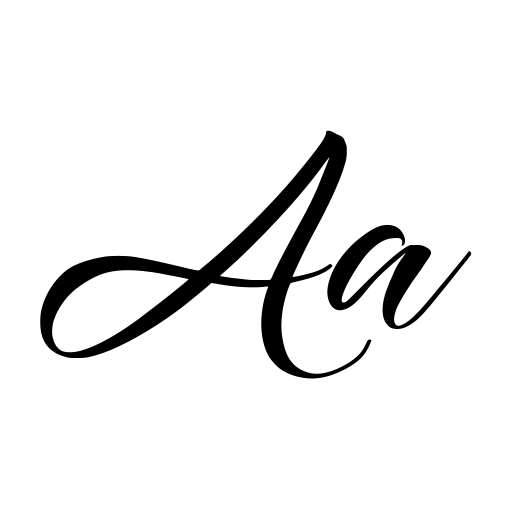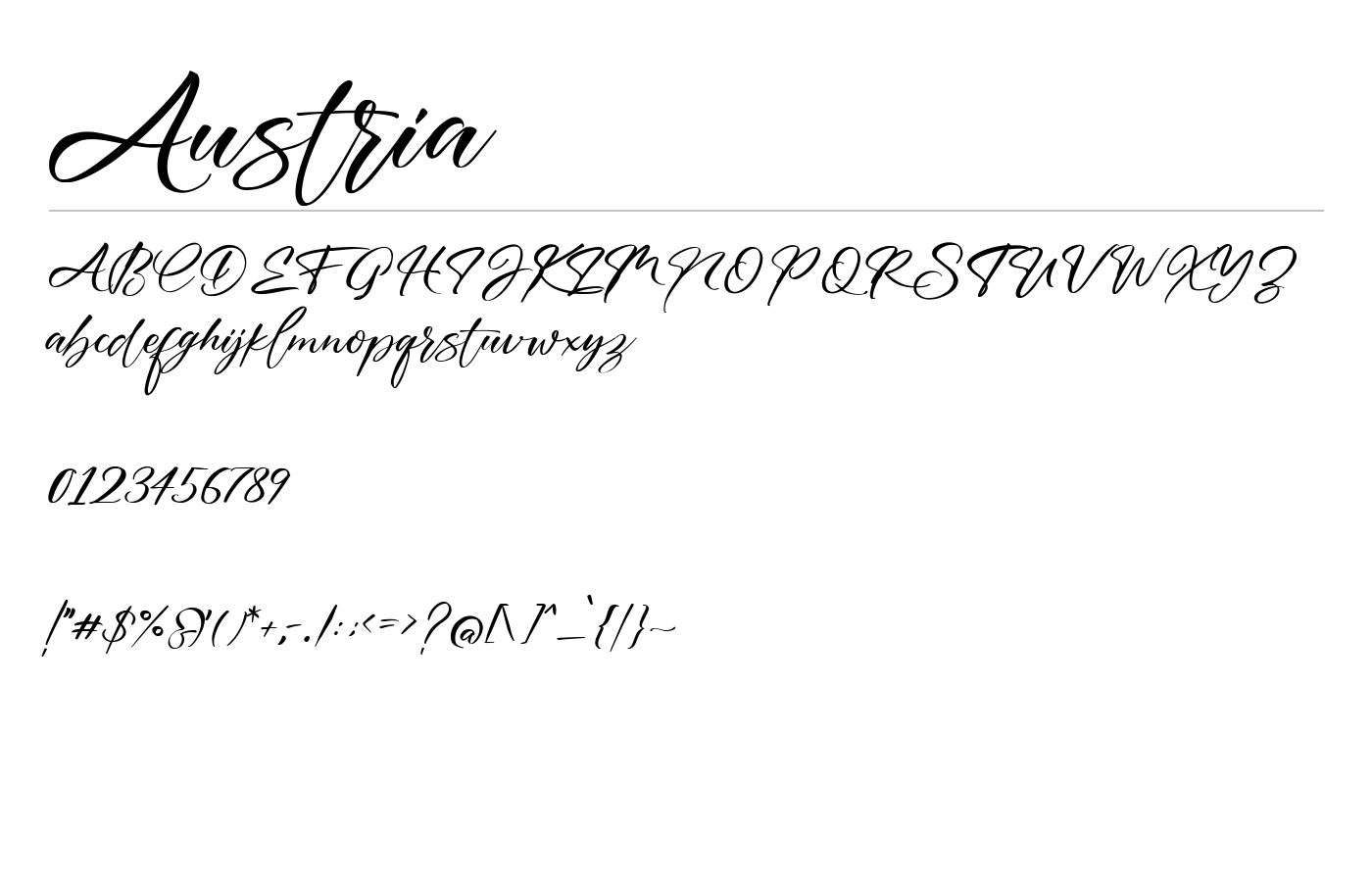
Austria is an elegant script font with a refined, flowing style that combines graceful thin strokes with subtle variations in line width for a delicate, handwritten feel. Its tall, slender letterforms and cursive connections make it perfect for sophisticated branding, invitations, and artistic designs that desire a touch of luxury and personal charm. This font shines best in headlines and decorative uses where its stylish personality can truly stand out.
Austria Font
About Austria Font